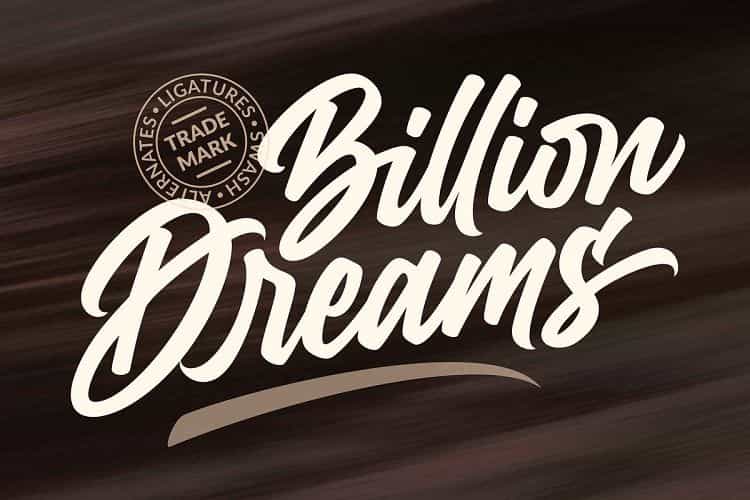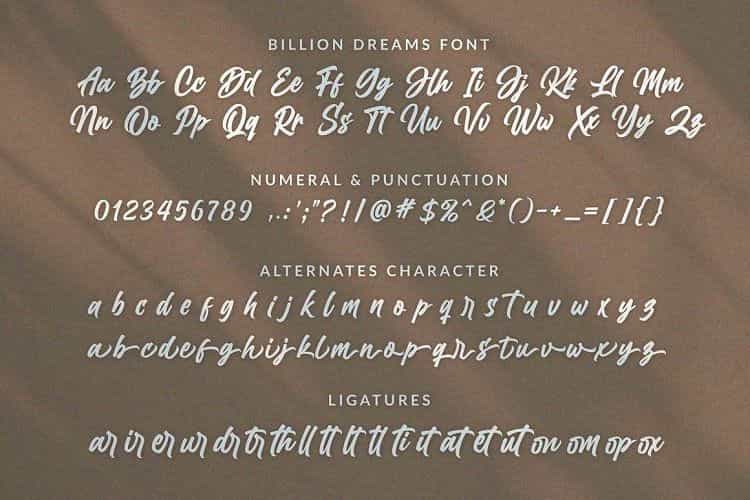
The Billion Dreams is a clean and lining brush Font. This font is designed to be used in designing the logo for your brand or for your client’s brand and can also be used in designing various items like logos, badges, signs, packaging, headings, titles, T-shirts and apparel, posters and more.